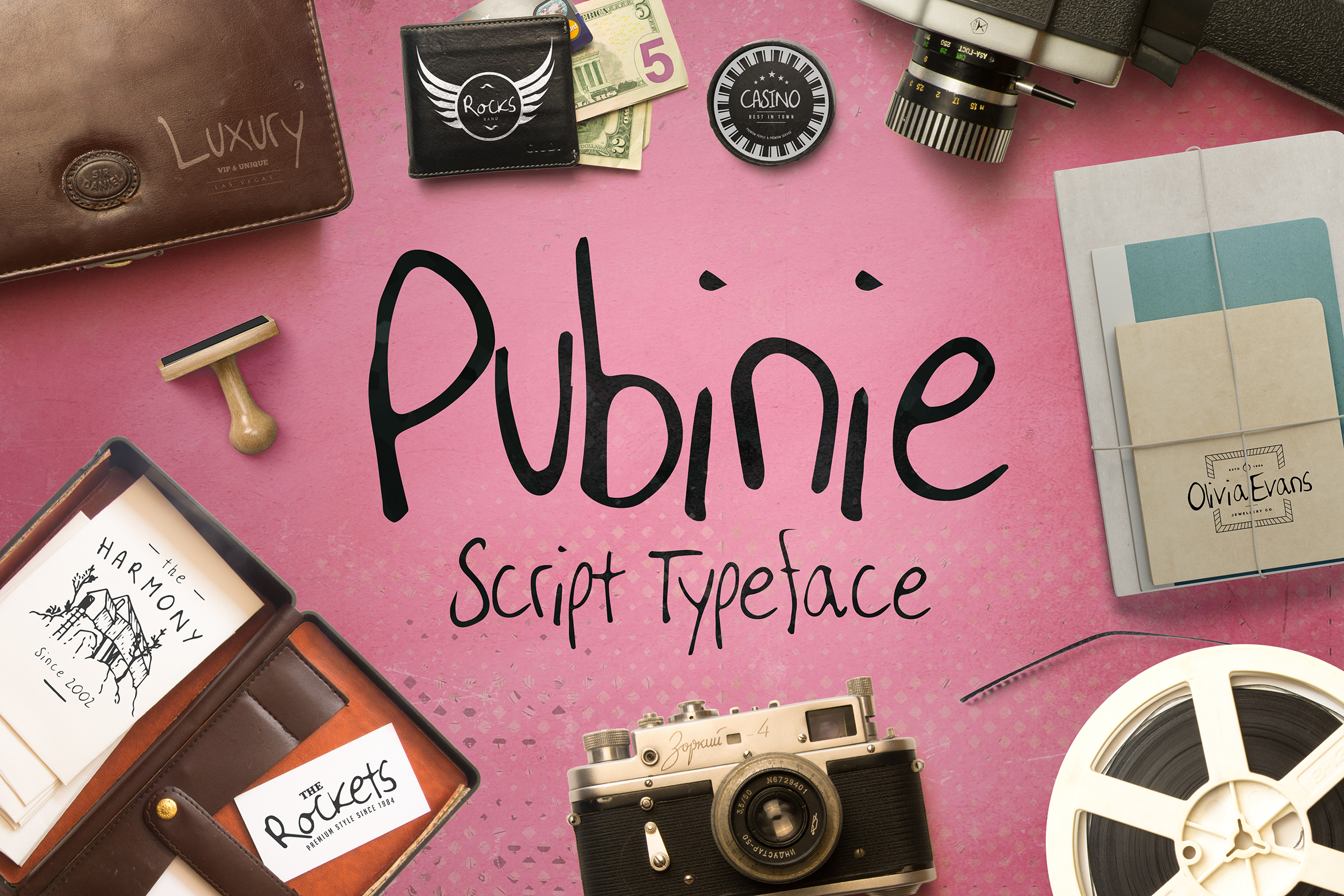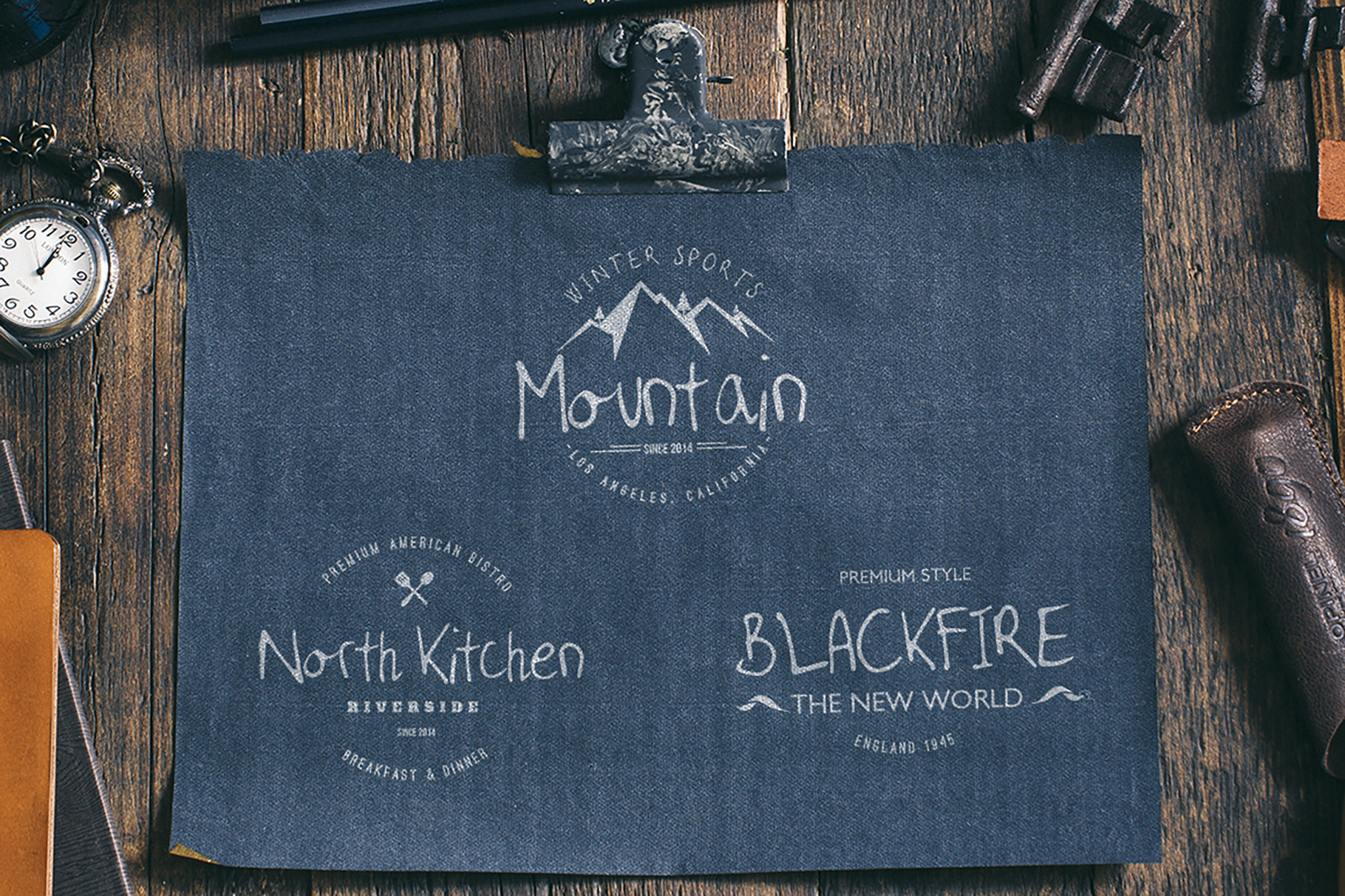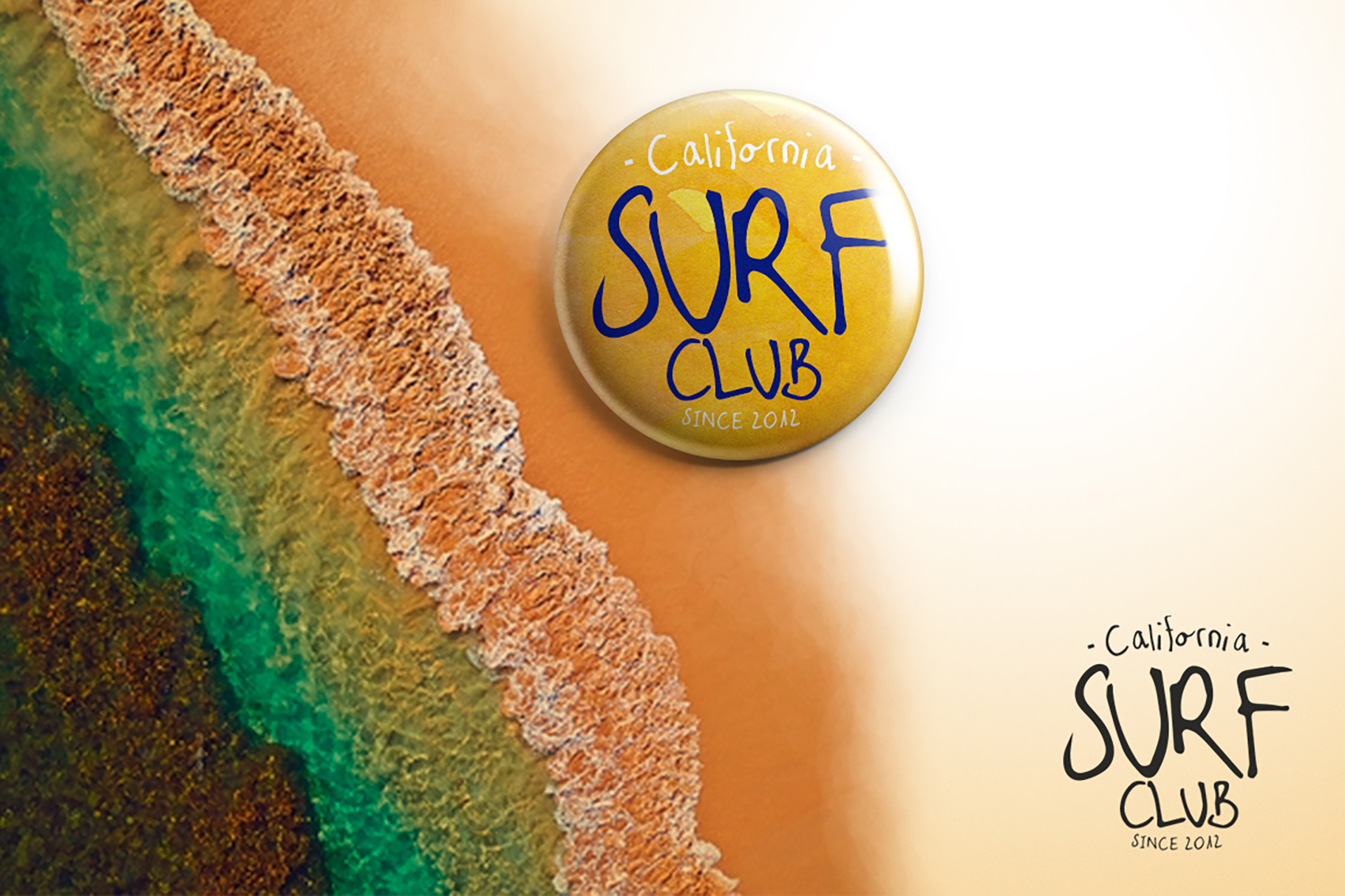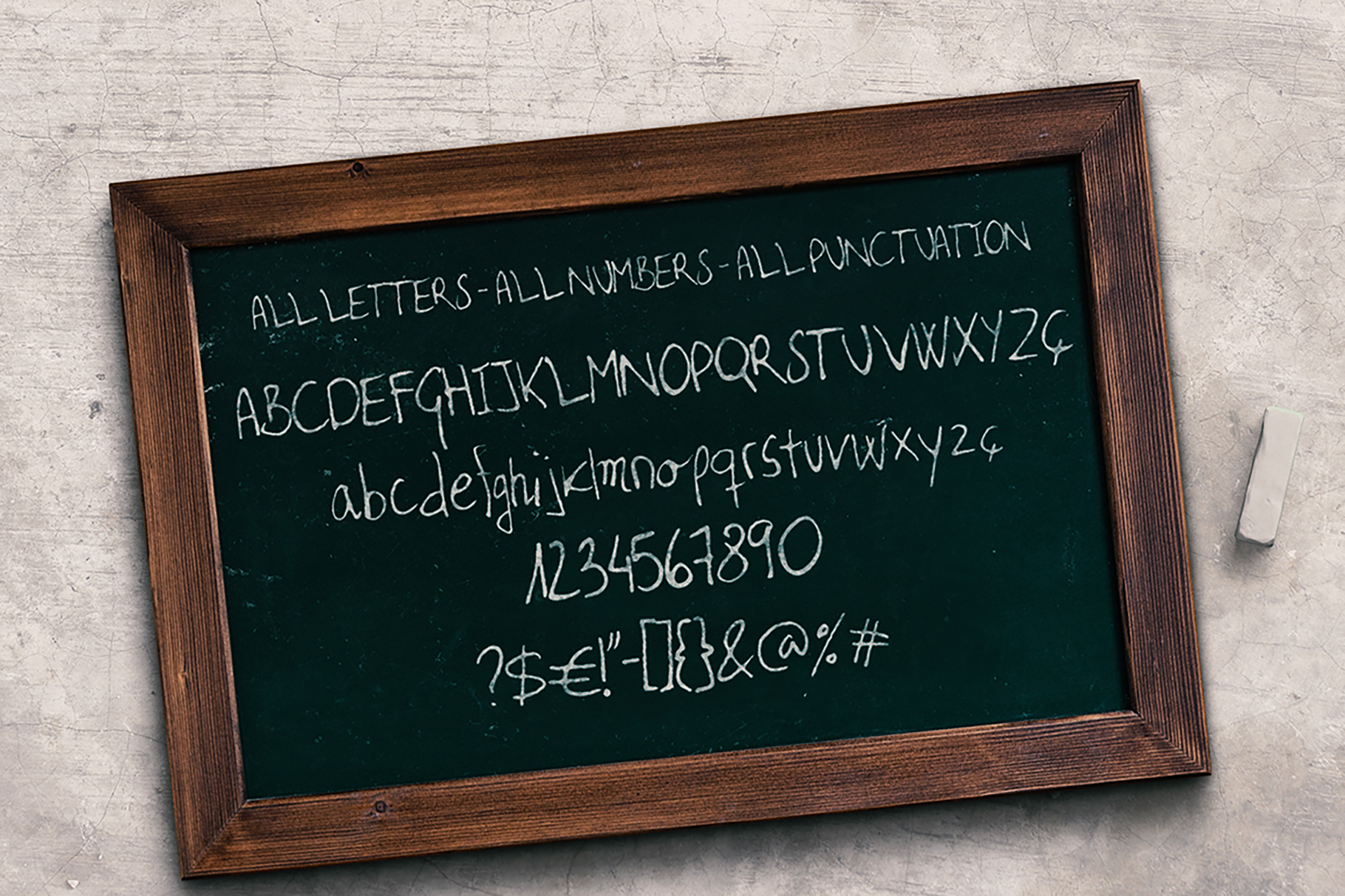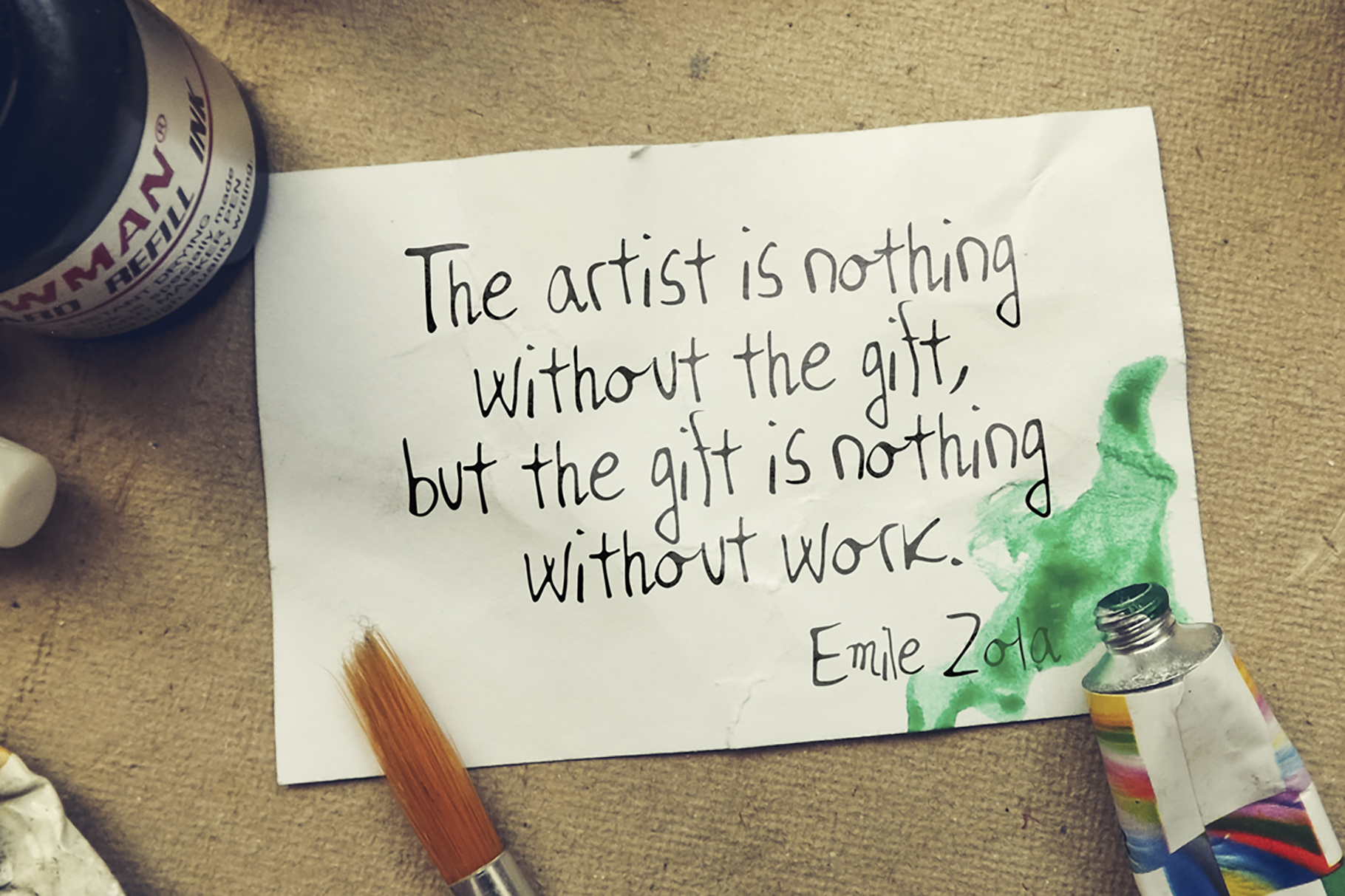
Pubinie is such a sweet font that you would almost try and eat it. The font is created very delicately and uses thin lines. Because of this the font feels very clean and neat, but it still has a playful hand-crafted feeling to it.